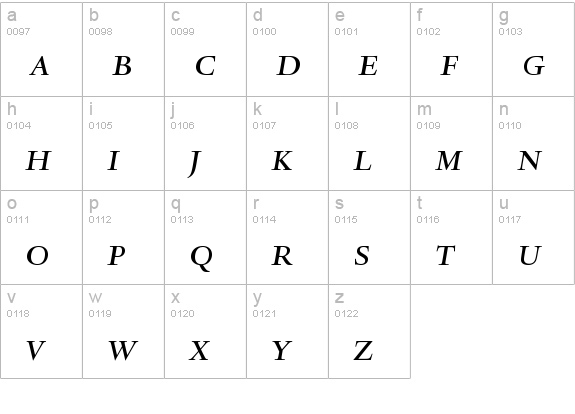
DTLHaarlemmerDCaps-Italic is a distinctive, italic variant in the DTLHaarlemmerDCaps typeface family \xE2\x80\x94 well suited to design and typography projects.
The DTLHaarlemmerDCaps-Italic font is a stylish and elegant typeface that exudes sophistication and class. Its sleek and slanted design adds a touch of modernity to any project, making it perfect for adding a touch of flair to your designs. The italicized caps bring a sense of refinement and elegance, making it ideal for headings, titles, and branding materials. What makes this font even more appealing is that it is available for free download at FontsMarket.com. This means that you can easily access this premium font without any cost, making it a valuable addition to your font collection. Whether you're a designer looking to elevate your projects or an individual looking to enhance your creative endeavors, the DTLHaarlemmerDCaps-Italic font is a versatile and stylish choice that won't disappoint. Download it today and take your designs to the next level!